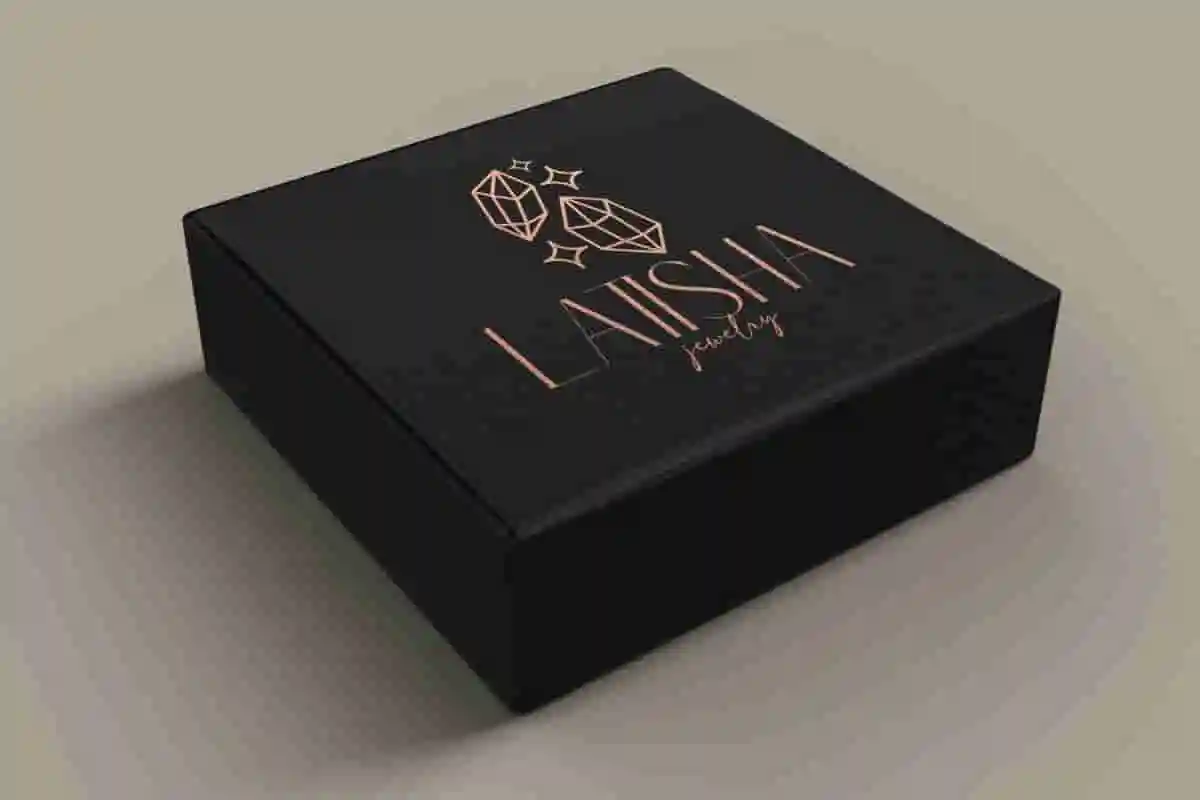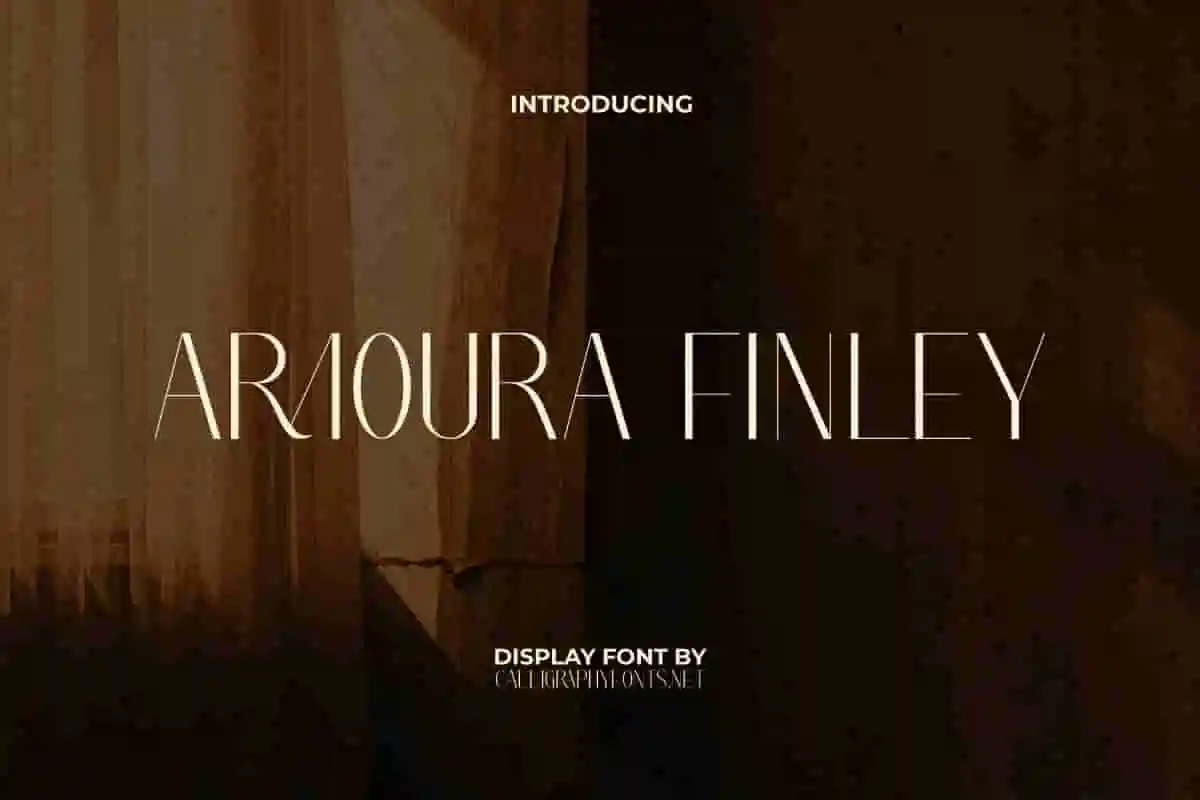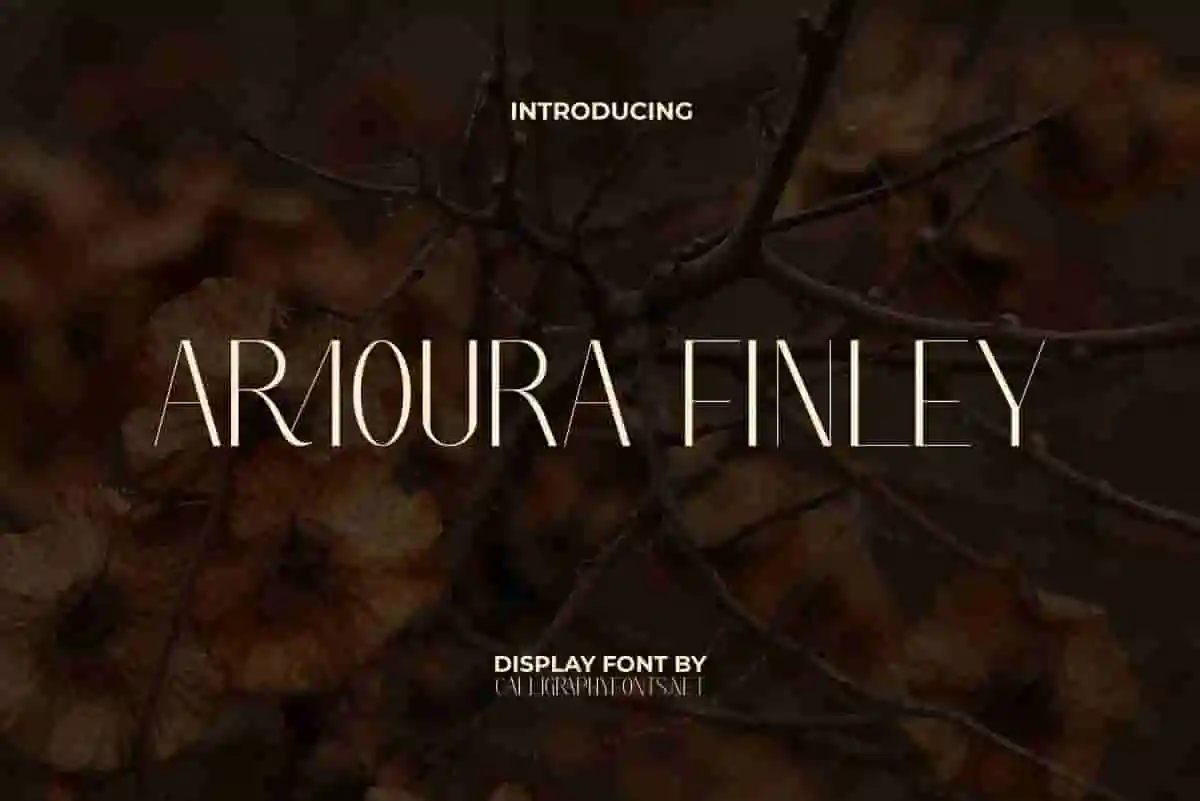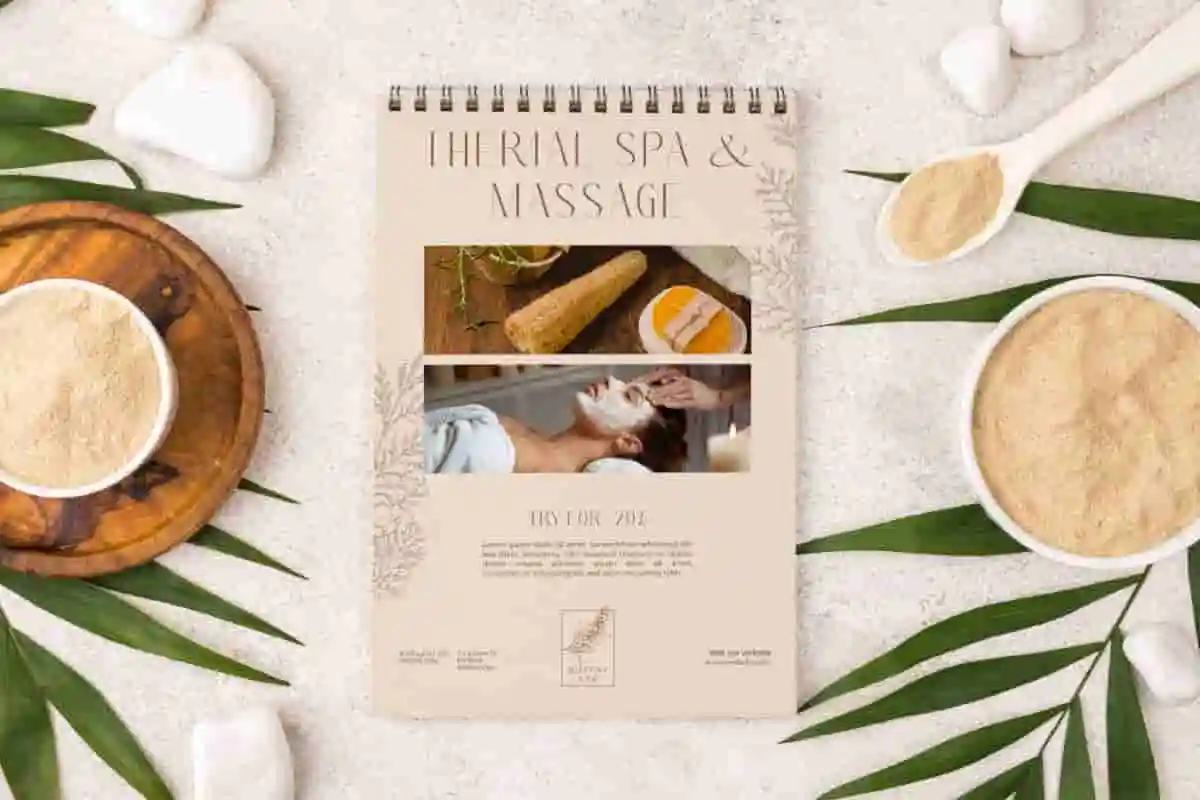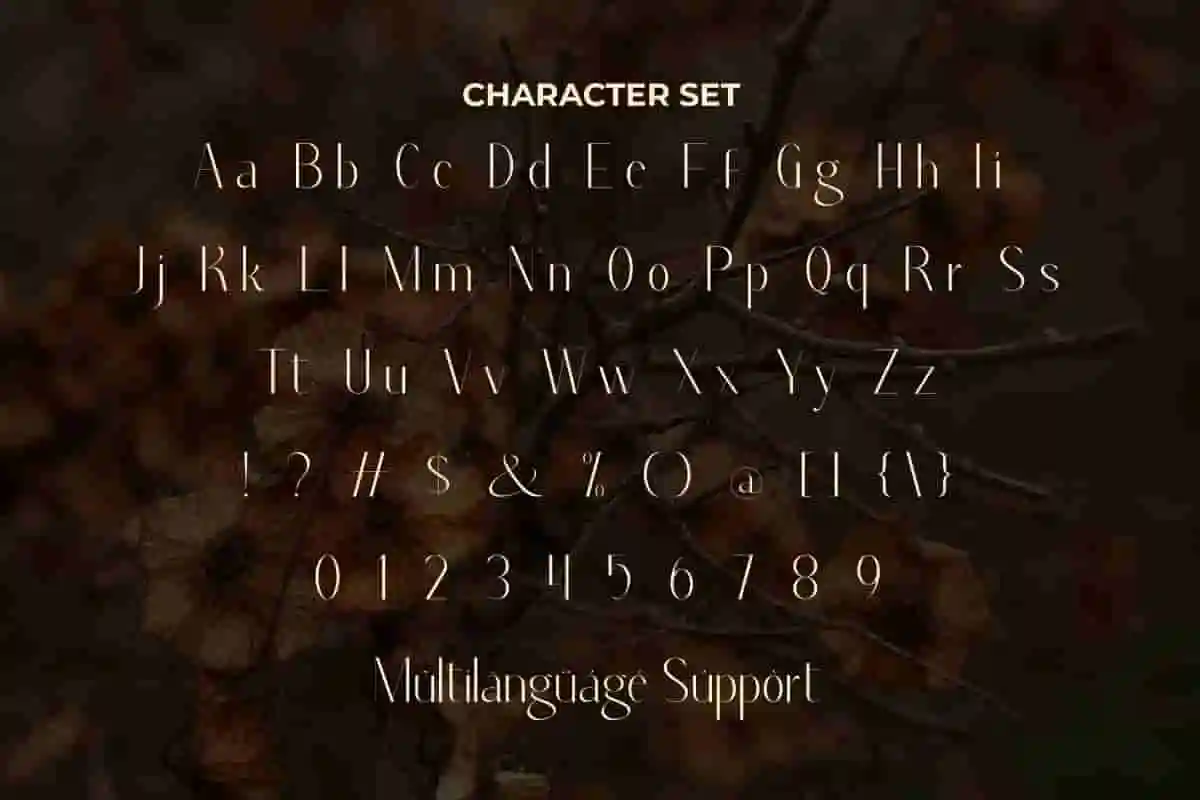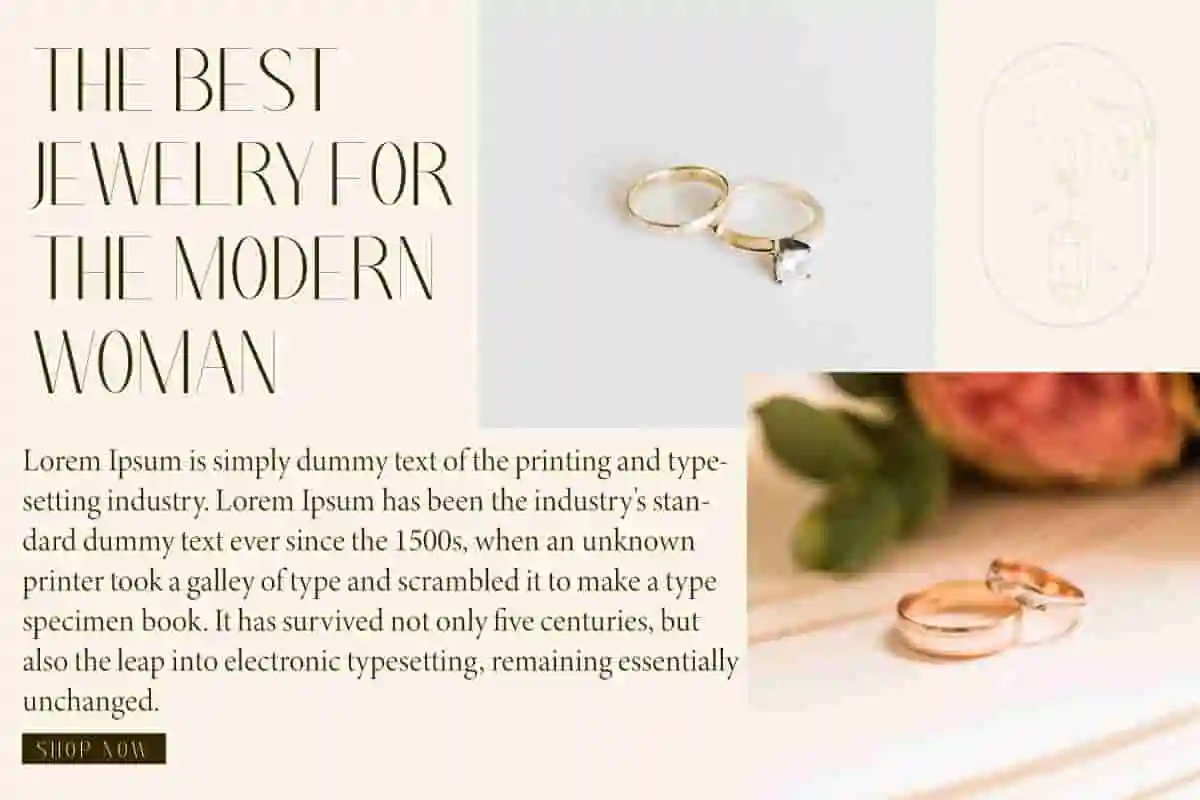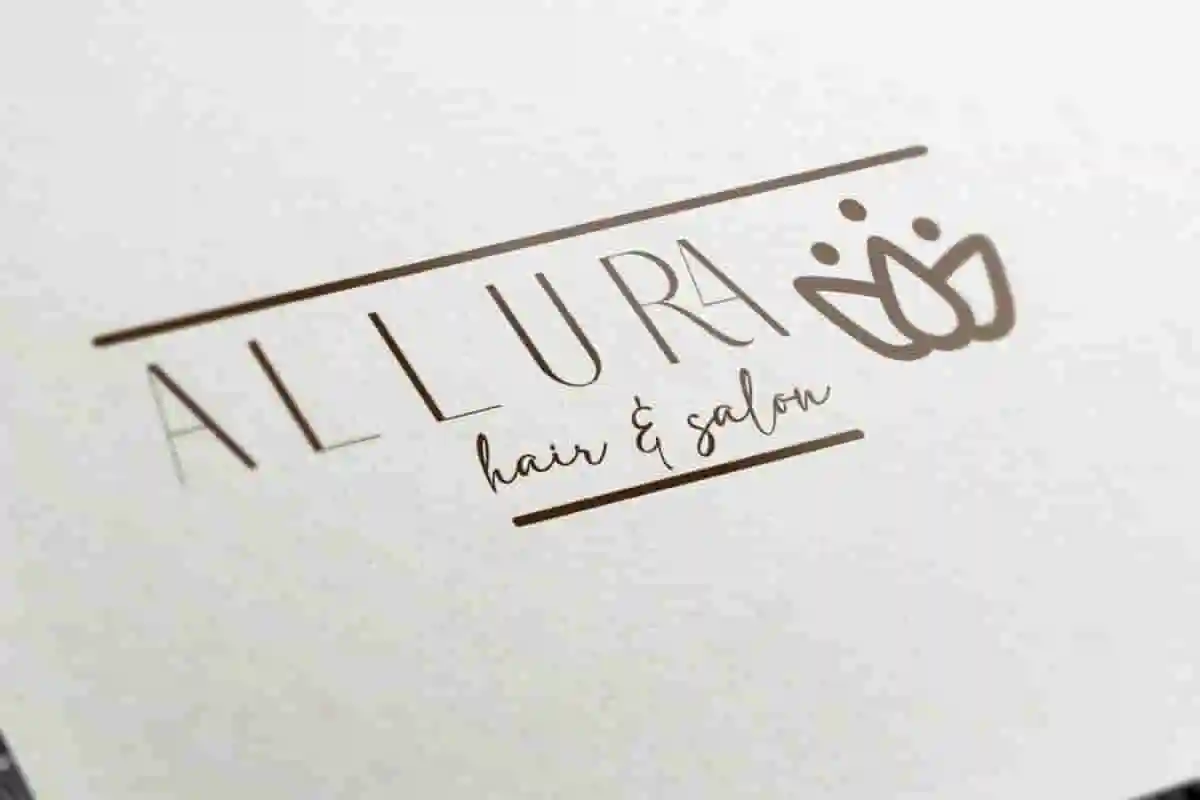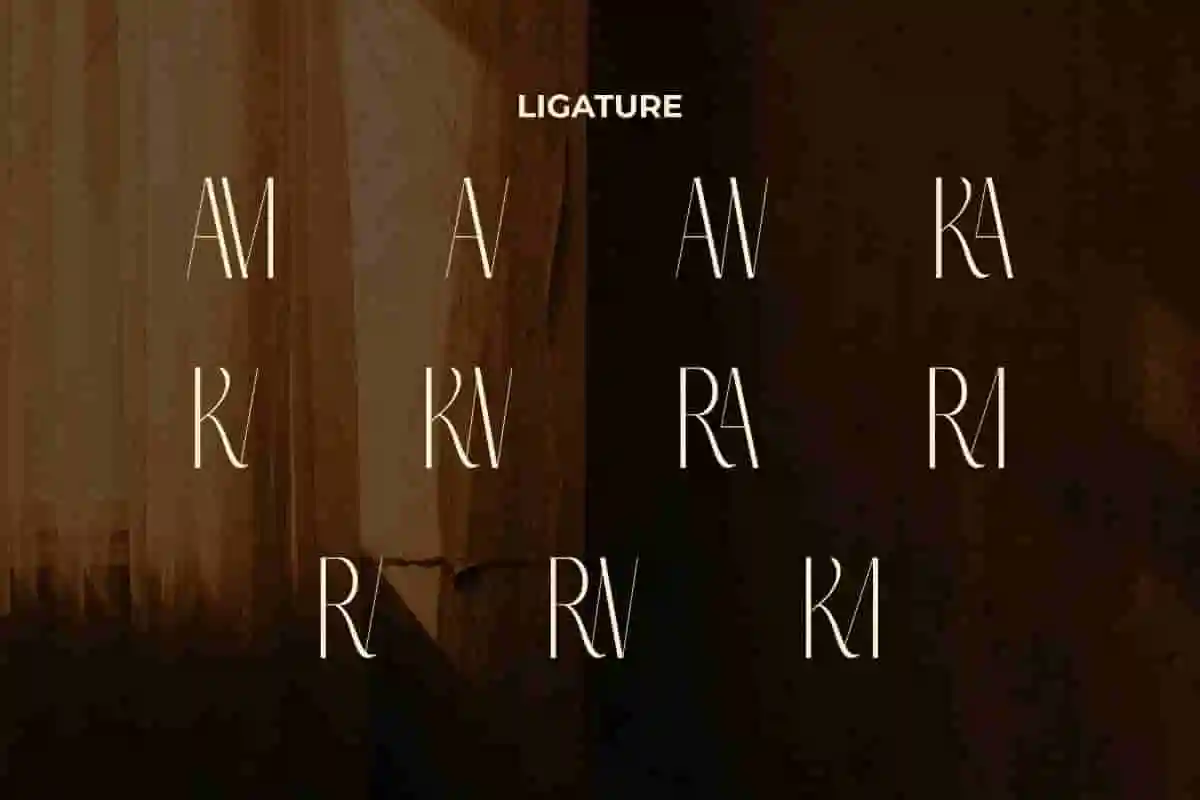
Armoura Finley Display Font
Armoura Finley Font is a sophisticated sans serif display font that conveys a sense of modernity specially designed for architect, cafes, flyer, heading, jewelry, logo, packaging, salon, spa, etc.
Armoura Finley Font is a modern and minimalist sans serif with a beautiful mix of ligatures, elegantly and sleekly designed to create a contemporary look. This font is suitable for aesthetician, beauty therapist, cafes, clothing brand, cosmetologist, graphic design, handicraft, home furniture, interior design, jewelry, photography, real estate, restaurant, printing, publishing, spa salon, and much more.
Introducing Armoura Finley Display Font, a high-contrast serif display typeface designed to add luxury, class, and striking visual impact to your creative projects. Whether you’re working on branding, editorial layouts, logo designs, packaging, or social media graphics, Armoura Finley brings bold elegance and timeless sophistication to your typography.
Make a bold statement with Armoura Finley Display Font, a striking serif typeface that blends modern sophistication with timeless elegance. Designed to elevate high-end branding, luxury packaging, editorial layouts, and logo designs, this display font is your go-to choice for creating visually powerful and memorable designs.
Step into a world of timeless elegance with Armoura Finley Display Font, a luxurious high-contrast serif font made for bold and sophisticated design. Whether you’re crafting a brand identity, designing editorial layouts, or creating eye-catching packaging.
• High-contrast
• Fully supports multilingual
Armoura Finley Font is a perfect choice to create a classy look. Its clean and refined style brings professionalism and ease to any project. This font will pair well with any font to see what it looks like and get the most out of it. Suitable for blogs, branding logo, brochure, covers, embossed design, headers, heading, headline, invitation, mockup, product packaging, poster, stationery, template, title, website, and much more.
Armoura Finley Font comes with a complete set of Uppercase and Lowercase Basic Characters, Numbers,  Punctuation, Symbol, and Ligature. It is supported with multilingual characters and ready to use both on Windows machine or Mac with simple installations. It’s tested to work well in the Adobe Apps (Illustrator, Adobe InDesign, Adobe Photoshop) CorelDraw, and others. PUA Encode Characters means you can access all the characters easily – Fully accessible without additional design software.